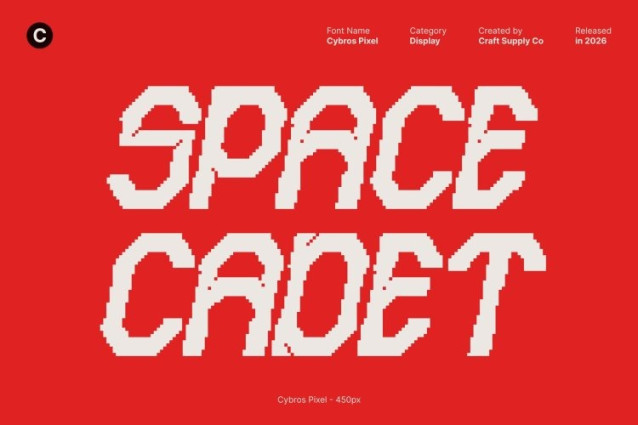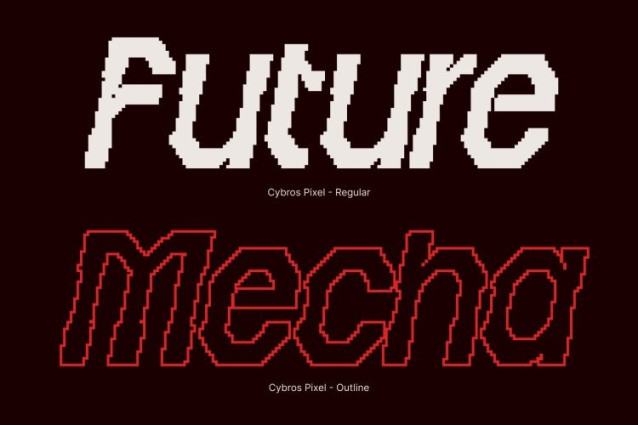
Cybros Pixel Font
Cybros Pixel Font This is a forward-looking display font that blends futuristic vision with pixel-based detailing. Its sleek lines and geometric construction create a bold digital presence, while the pixel elements introduce an old-digital nuance that feels both retro and modern. The result is a typeface that captures the spirit of future technology through a distinctly digital lens.
Inspired by Tomorrow’s Innovation
Rooted in ideas of artificial intelligence, cyber culture, and space-age exploration, this font reflects a forward-thinking approach to typography. Its structured forms and techno-inspired rhythm evoke innovation, progress, and experimentation, making every letter feel precise, calculated, and futuristic.
Perfect for Cutting-Edge and Sci-Fi Projects
Designed for projects that demand a strong futuristic identity, this font excels in sci-fi visuals, tech branding, gaming graphics, digital interfaces, and experimental posters. Its pixel style reinforces a cyber and digital atmosphere, enhancing concepts related to technology, virtual worlds, and futuristic storytelling.
Versatile, Bold, and Visually Impactful
Despite its strong thematic character, this font remains versatile across creative applications from branding and editorial layouts to motion graphics and UI elements. Its impactful design ensures high visibility and memorability, helping designs stand out with confidence.